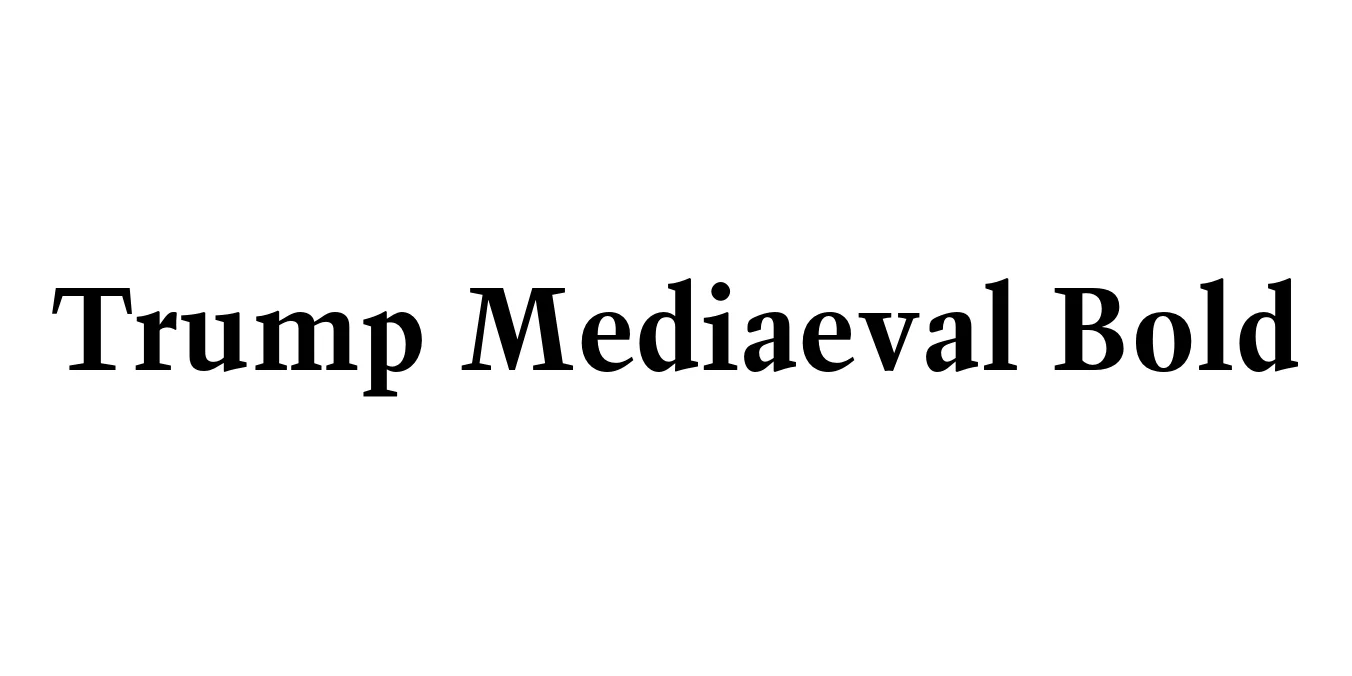
Trump Mediaeval Bold
Designed by Georg Trump
| Font Name | Trump Mediaeval |
| Designer | Georg Trump |
| Similar Fonts | Palatino, Sabon, Minion, Bembo |
Trump Mediaeval Bold was designed by the renowned German typographer Georg Trump in 1954 for the C.E. Weber type foundry. This typeface is a distinct departure from traditional Renaissance old-style faces, characterized by its sharp, wedge-shaped serifs and a robust, angular structure. The name 'Mediaeval' is the German typographic term for 'Roman' or old-style, reflecting its historical inspiration while maintaining a modern, mid-century aesthetic that prioritizes clarity and strength.
The Bold weight of this family is particularly acclaimed for its exceptional legibility and striking visual presence. It avoids the soft curves typical of other old-style fonts, opting instead for a crispness that ensures the text remains sharp even on textured paper or at smaller display sizes. Because of its unique personality and high-quality craftsmanship, it has remained a favorite among graphic designers for editorial projects and high-end book design for decades.
Trump Mediaeval Bold Best Uses
Perfect for sophisticated headlines and pull quotes in magazines or newspapers.
Highly effective for chapter titles, covers, and authoritative body text headers.
Conveys a sense of legacy and reliability for logos and brand identity systems.